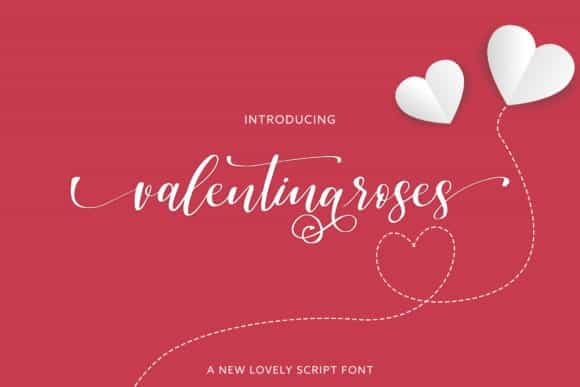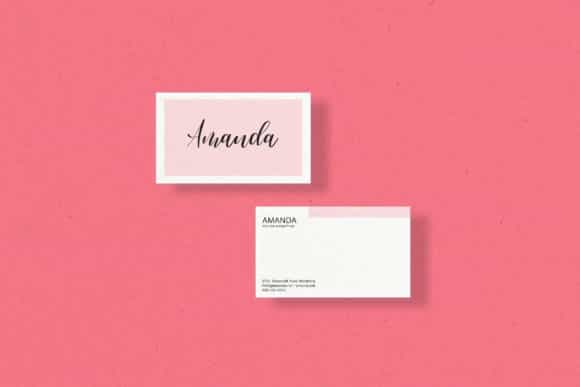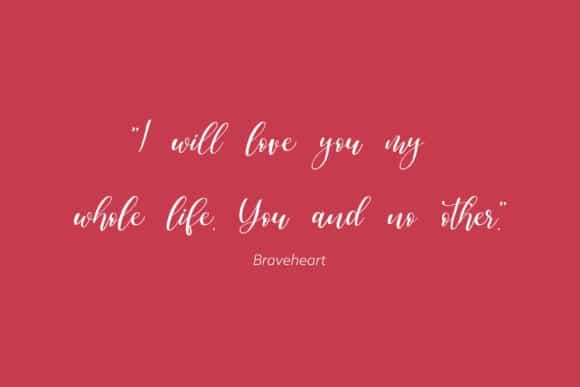
Discover Valentinaroses Font, part of the Calligraphy collection—a versatile and unique font perfect for adding a personal touch to your projects. Download it for free and enjoy crafting designs with style, from invitations to social media posts. This font is available exclusively for personal use, giving you the freedom to create without limits. Unlock your creativity with Valentinaroses Font today!
Valentinaroses Font is a calligraphy wavy, modern and classy typeface that will go well with your next design; for example logos, printed quotes, invitations, cards and product packaging. It is so soft it can be used on headers too or anything else you can think of.